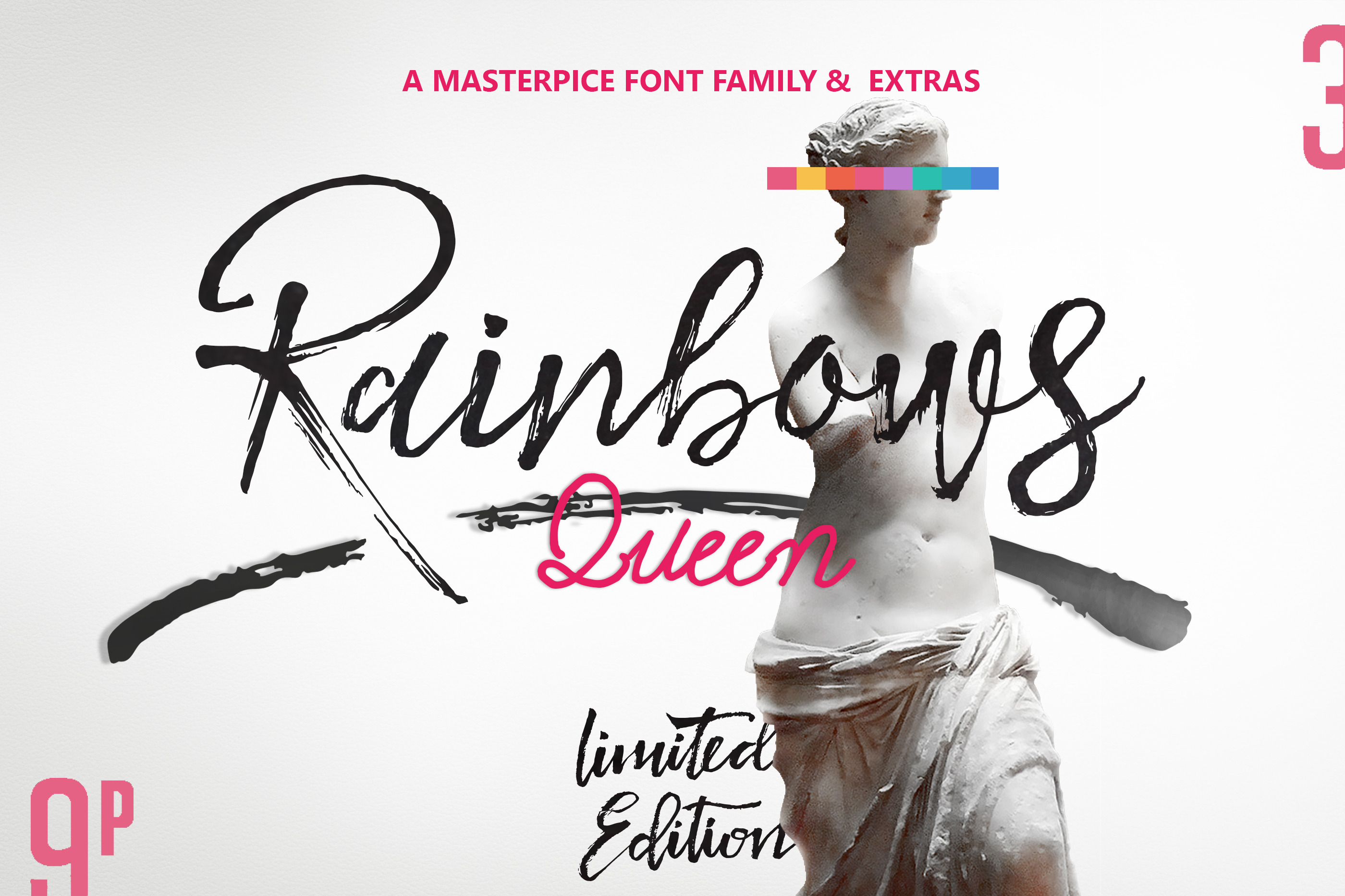
Rainbows Queen Typefaces & Extras
Thank you for Rainbows Queen look. with a new brush writing style family model with cool light and curly. powerful and natural brush with tracks, allowing the you to create beautiful hand-made typography in an instant. rest your eyes with a light form, add motion to your typography with curly! Not all that much. Hundreds of great extras are waiting ready to change your design. In addition, Do not miss the opportunity up to 2 GB to free gift!
Rainbows Queen Script - It comes with a handy set of OpenType Alternates , Ligatures - all to add an aestetic touch to your designs. These are all coded with Unicode PUA - You do not need any extra app for alternate characters. It's all handled.
FAQ's : Which international languages does Rainbows Queen Typeface support? Rainbows Queen Typeface has accented and special characters that support the following languages : Basque, Bosnian, Catalan Cornish, Croatian, Czech, Danish, Dutch, Embu, English, Esperanto, Estonian, Faroese, Filipino, Finnish, French, Galician, German, Hungarian, Icelandic, Indonesian, Irish, Italian, Malay, Maltese, Manx, Maori, Meru, Morisyen, North Ndebele, Norwegian Bokmål, Norwegian Nynorsk, Nyankole, Oromo, Polish, Portuguese, Romansh, Serbian (Latin), Slovak, Slovenian, Spanish,Swedish, Swiss German.Turkish.